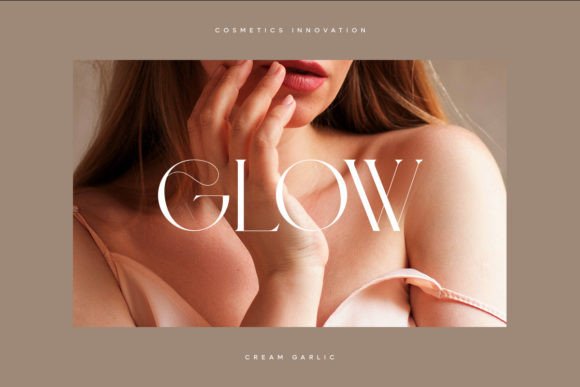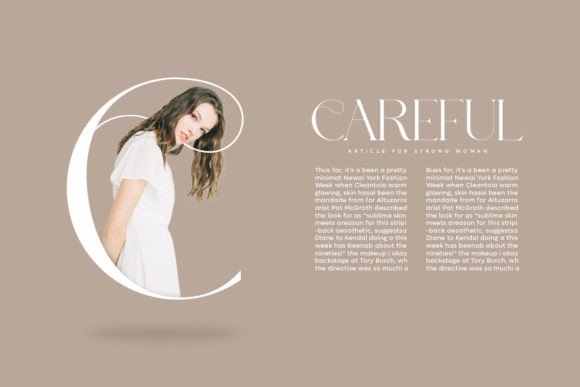
Cream Garlic Font
Cream Garlic is a sophisticated, charming serif font with a fashionable touch. Specially designed for luxury, elegant, feminine projects, this font is perfectly suitable for creating modern, chic designs.